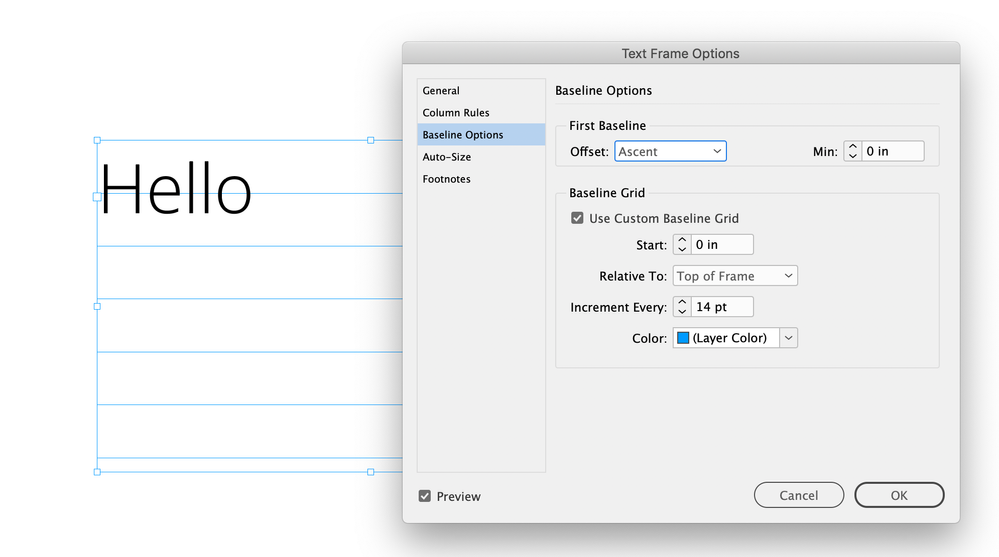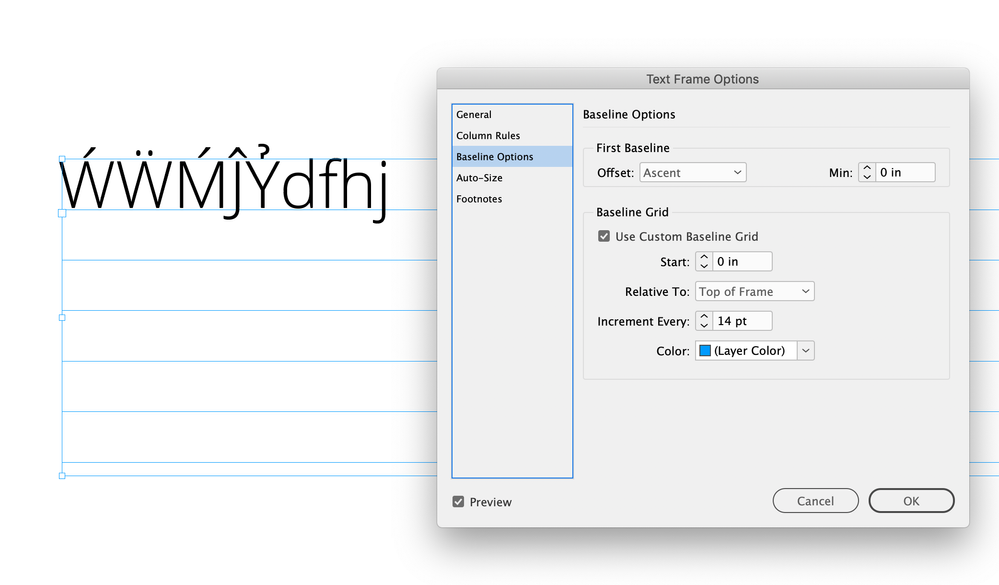
Someone else complained about this in november - https://community.adobe.com/t5/indesign-discussions/text-boxes-need-to-be-enlarged-after-update/m-p/... - the issue there is marked as solved, but it wasn't solved actually.
but the issue started with 17.0, actually i was really hoping it would have been addresses in this recent 17.1, update, but unfortunately it wasn't fixed.
Please don't take this badly, but what's to fix?
One font from one type house works consistently one way. That font, named the same, created and distributed by another type foundry, consistently works another way.
Both fonts work fine. But they don't work the same way. The only "fix" needed is to use just one version of the font, from just one type source, and there will be nothing further that needs "fixing."
I know. What version of font repository will fail depends of the font of the repository you start out.
If you start out with Google Fonts' Open Sans, the version of Adobe Fonts will fail. If you start out with Adobe Fonts' Open Sans and substitute Open Sans with the Google Fonts version, the Google Fonts version will fail.
Simply a bug with the default value "Ascent" for the Start First Baseline Offset in a default text frame.
What can one do?
[1] Never substitute fonts.
[2] Use a different setting for Start First Baseline Offset in your text frames.
Never use "Ascent", instead use perhaps "Cap Height".
FWIW: I assume my post in this other thread is marked as "Solved", because I detected the cause and showed a workaround. My answer was not meant as a bug fixing attempt. I'm not part of the devoper team; just an InDesign user like you are.
Hi Uwe, I’m also seeing it in CC2021, but it looks more like a problem with the Google TT font than an InDesign bug:
Here the Adobe OTF version behaves as expected, the text‘s Leading is set to 14, so the first baseline aligns to my 14pt baseline grid. The x-Height and Ascent Offsets also align as expected:
The Google TT version seems to have a different Ascent metric:
But the Ascent line is dependent on the font:
I think the ascender line is set by the type designer:
It looks like Adobe licensed Open Sans from Google and converted it to Open Type. The Adobe OTF version’s ascender line is at the lower case ascent, and the Google TT version has the ascender line to include diacritical marks:
I have cracked open each version to take a look at their internal specs. There is indeed a difference in the ascent defined within each. It's much smaller in the version available from Adobe. Although that is also Google font, it's only v1.00/1.10. The version that Google is supplying directly is currently v3.000 with a much larger ascent specified. Since, normally, the acsent defined in a font takes into account for the glyphs with accents, etc, my guess is Google tweaked the ascent between versions.
Hence Indesign is reacting appropriately according to which version you are using. As said by others, stick with one set and be done with it. Better yet, never use Ascending as the default baseline.
Also of note: The AF-supplied version has different underline specs (v1.10 is fatter) and diacriticals are in slightly different positions.
Hi Brad it looks like some type designers choose to include diacritics, while others define the ascent as the top of the lowercase characters. Seems like most Adobe designed fonts (Minion, Myriad, Adobe Garamond, Caslon, etc.) do not include the diacritics:
Oh, they're in there (in the Adobe-supplied version). My guess is they original designer (Ascender) didn't account for them in their first version, but that has been since corrected.
This is the second time i've seen differences in the Google fonts that were given to Adobe and the ones Google supplies directly, and it comes down to the the fact the Adobe supplied ones were older versions. Why they aren't keeping up to date is beyond my understanding of the licensing agreements between them, but, yah, this is causing issues!!
Another issue I found with Open Sans, is that the Plain "Regular" font has a different internal name between Adobe and Google, so they can accidentally be activated at the same time, which is nerver a good thing
Oh, they're in there (in the Adobe-supplied version).
I know the glyphs with diacriticals are there, I meant that it appears to be a type design choice to set the ascent line either at the top of the diacriticals, or at the top of the lowercase character’s ascender. If you look at my Minion Pro capture the ascent line is at the top of the lowercase b ascender, not the diacritical—I’m seeing that with all of Adobe’s fonts and many others—the system Helvetica has it at the lowercase, while Helvetica Neue has it at the diacritical.
In any case, we're both on the same page...it was the designer's choice as to where they put the ascent. In the case of the Open San Adobe offers, it's an OLD version originally designed by Ascender Studios that Google has taken on.
Here are the three of them in that order. The Acsent in the current Google offering has been reduced!!!
The ascent slightly above the cap line is what I expect—all the Adobe originals seem to have it that way.
Space added above and below Source Sans Pro and Roboto Adobe fonts
where I showed the Roboto from Adobe Fonts next to the one from Google Fonts:
Now it's very clear what exactly happened!